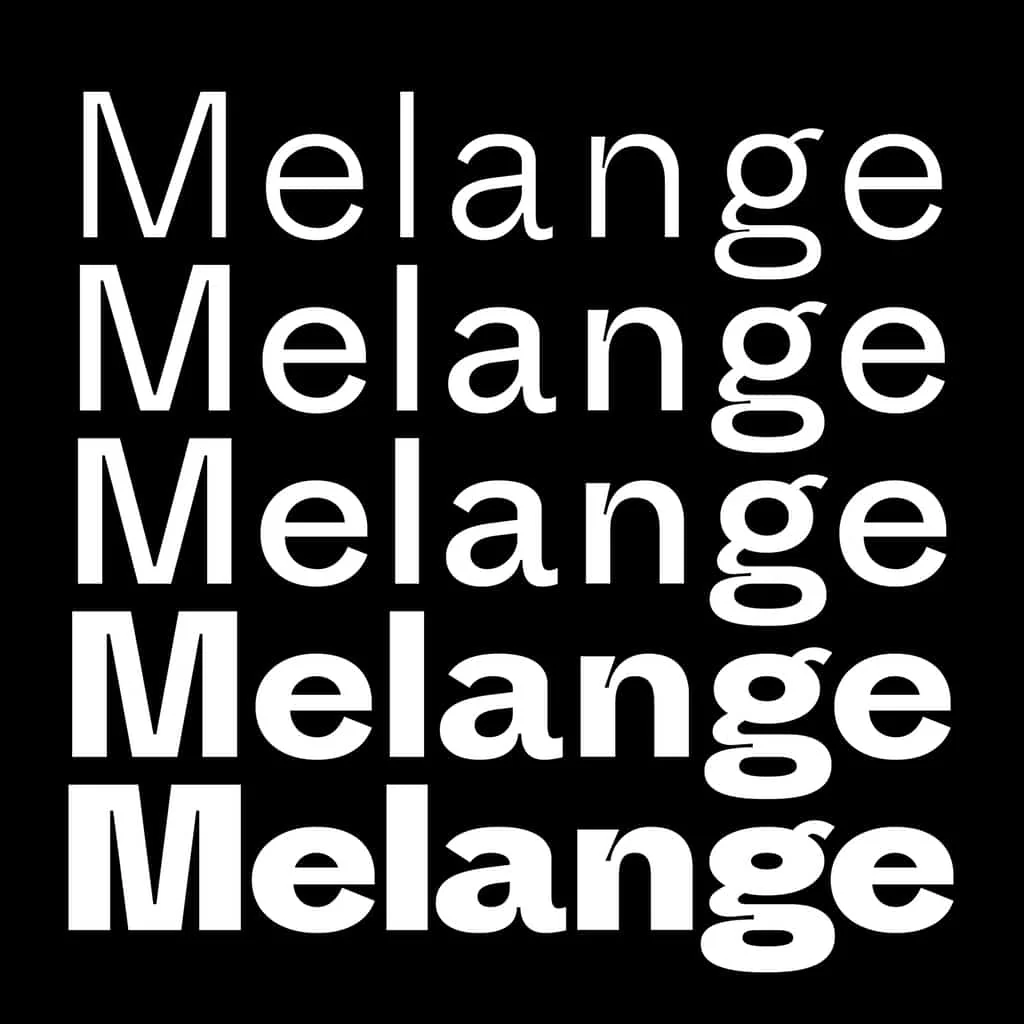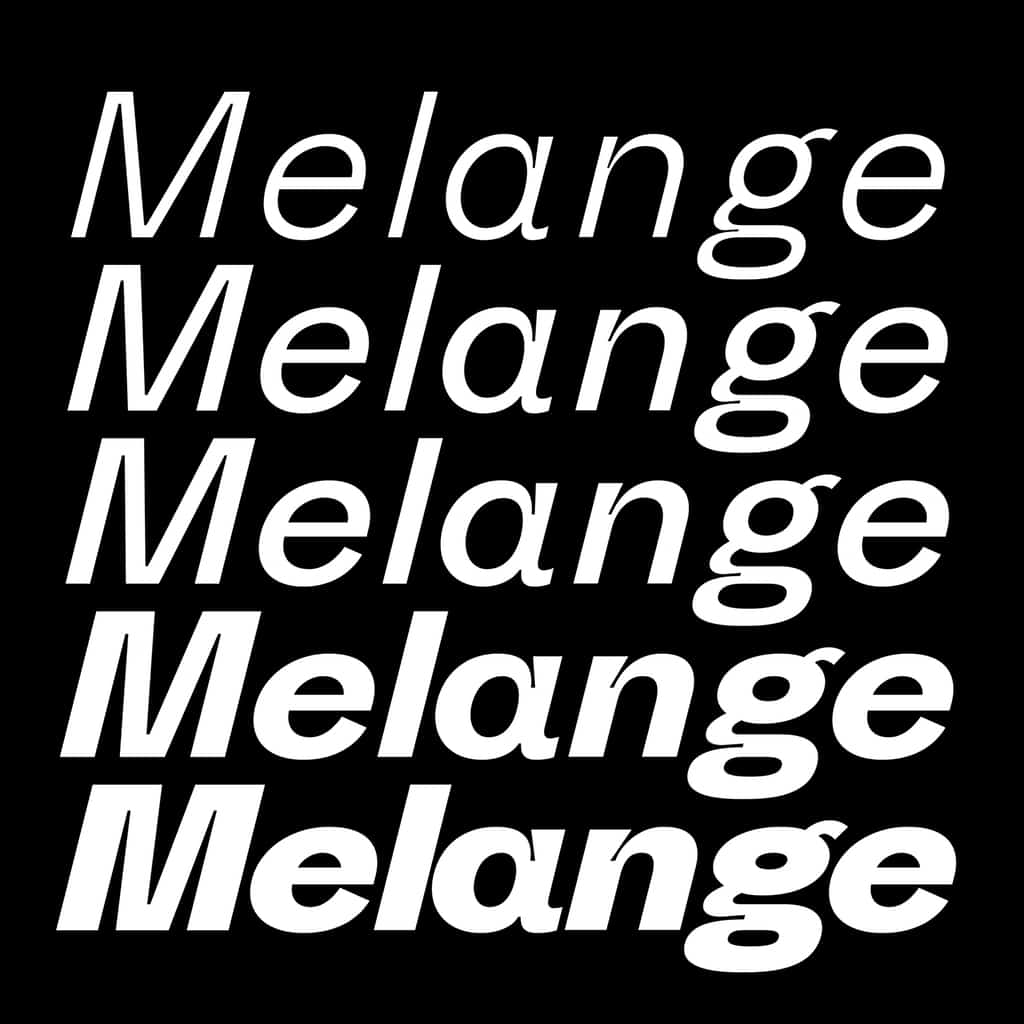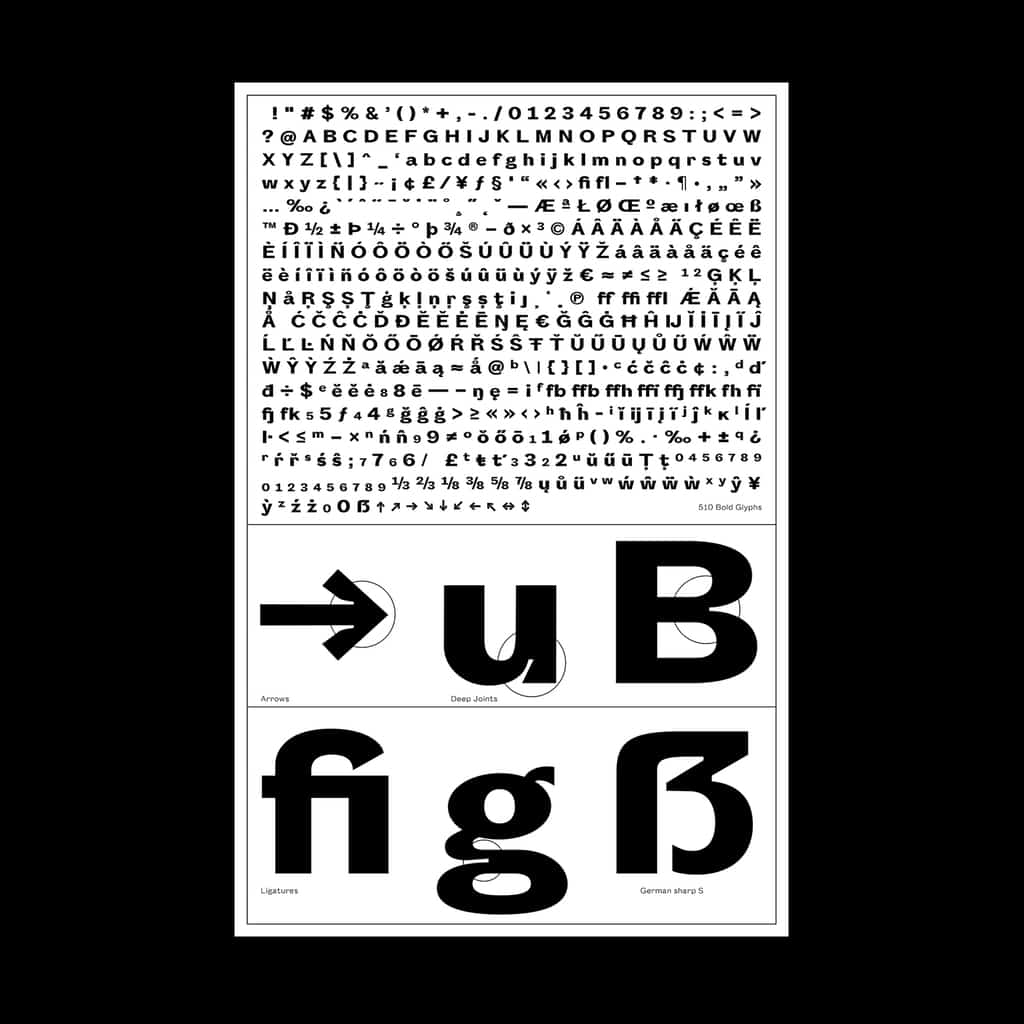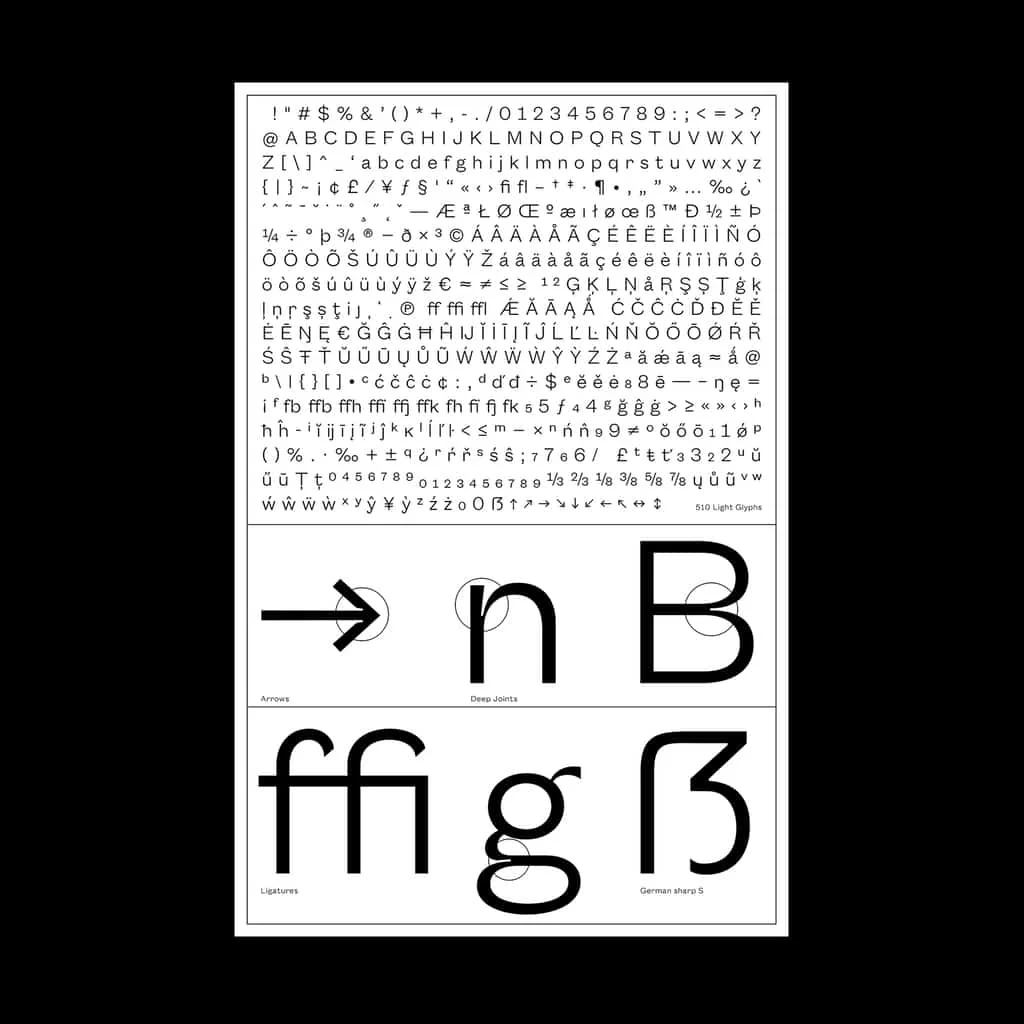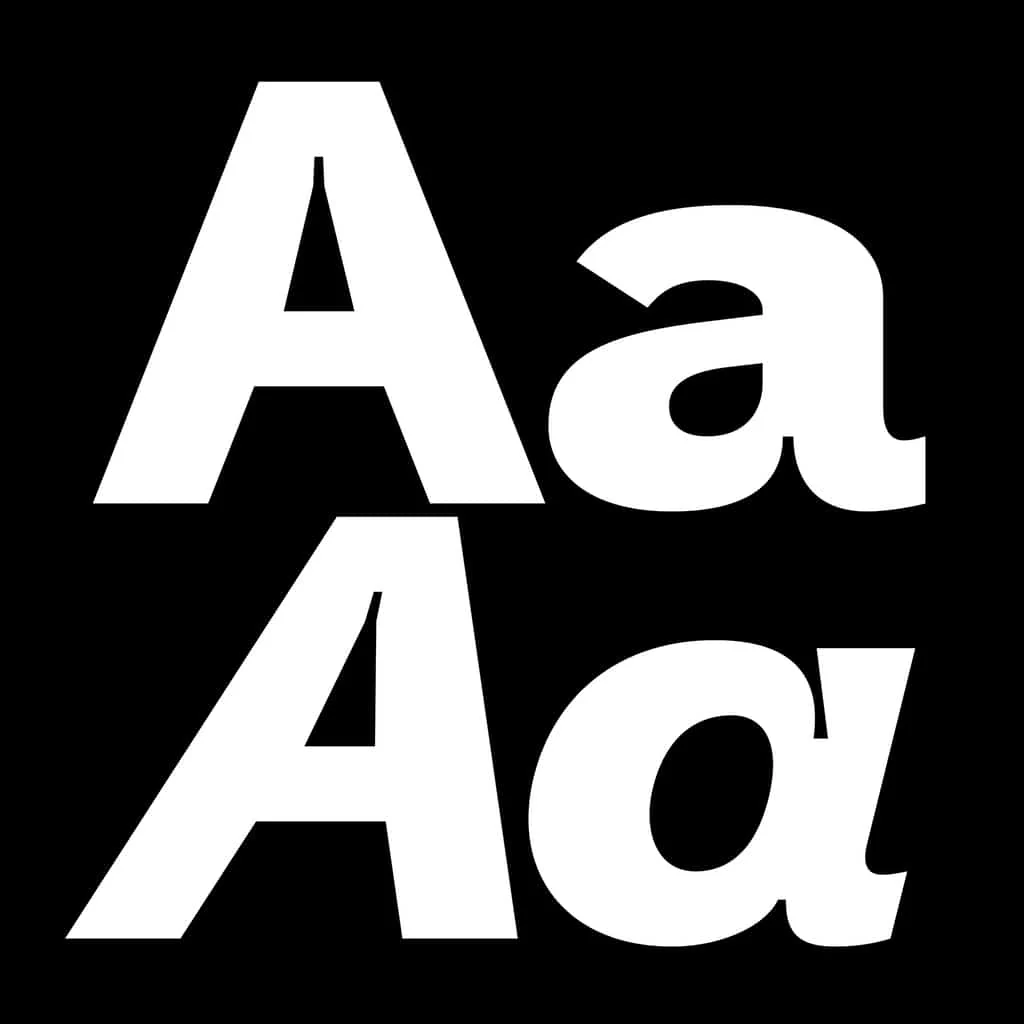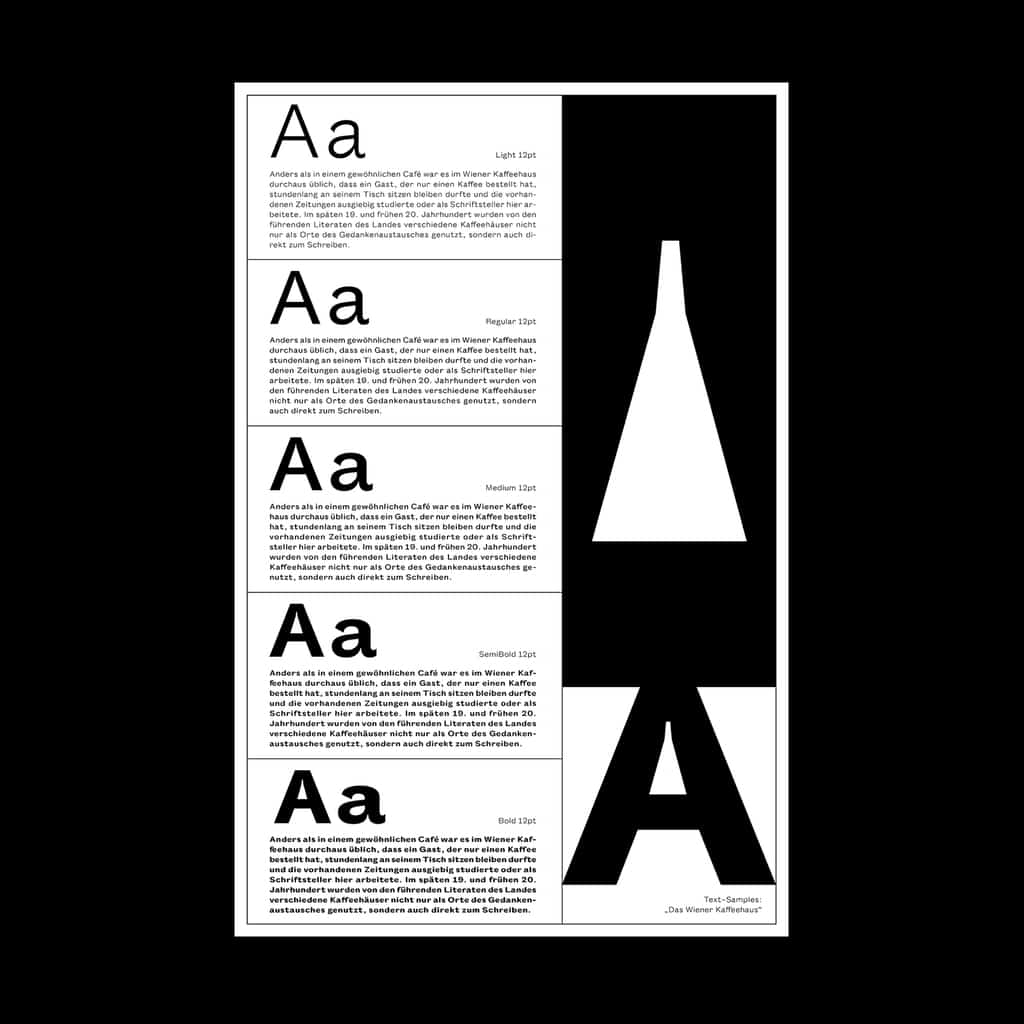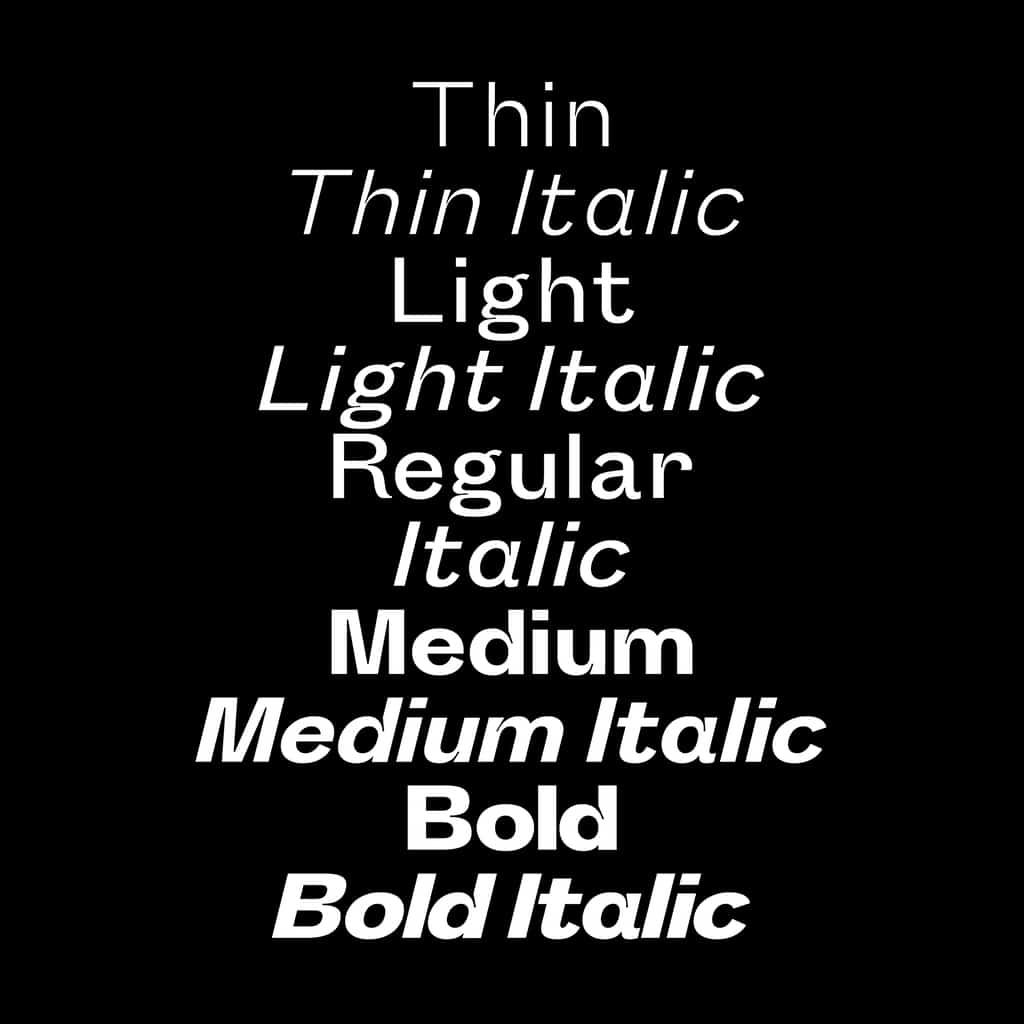
Melange
Melange is a versatile sans-serif typeface meticulously crafted to excel in both small and display sizes. Inspired by the Viennese coffee culture where espresso meets sweet milk foam, its name reflects its dual purpose: exceptional readability through strategic ink traps and striking aesthetics that shine in larger applications.
Designed with 9 weights and corresponding italics—Thin, ExtraLight, Light, Regular, Medium, SemiBold, Bold, ExtraBold, and Black—Melange offers a comprehensive range to suit diverse typographic needs. The edgy design of the ink traps enhances legibility at smaller sizes while adding visual interest and uniqueness at larger scales.
Melange
Melange is a versatile sans-serif typeface meticulously crafted to excel in both small and display sizes. Inspired by the Viennese coffee culture where espresso meets sweet milk foam, its name reflects its dual purpose: exceptional readability through strategic ink traps and striking aesthetics that shine in larger applications.
Designed with 9 weights and corresponding italics—Thin, ExtraLight, Light, Regular, Medium, SemiBold, Bold, ExtraBold, and Black—Melange offers a comprehensive range to suit diverse typographic needs. The edgy design of the ink traps enhances legibility at smaller sizes while adding visual interest and uniqueness at larger scales.
Melange is a versatile sans-serif typeface meticulously crafted to excel in both small and display sizes. Inspired by the Viennese coffee culture where espresso meets sweet milk foam, its name reflects its dual purpose: exceptional readability through strategic ink traps and striking aesthetics that shine in larger applications.
Designed with 9 weights and corresponding italics—Thin, ExtraLight, Light, Regular, Medium, SemiBold, Bold, ExtraBold, and Black—Melange offers a comprehensive range to suit diverse typographic needs. The edgy design of the ink traps enhances legibility at smaller sizes while adding visual interest and uniqueness at larger scales.